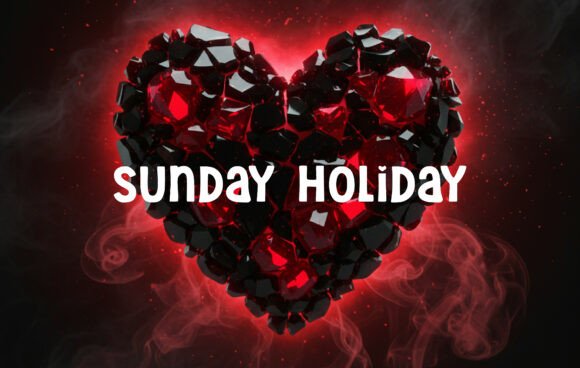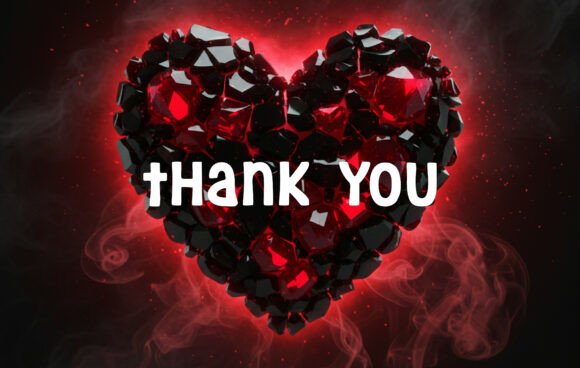
Introducing Heart Font: The Ultimate Display Font for Bold and Friendly Designs
Are you looking for a font that can add a touch of warmth and friendliness to your designs? Look no further than Heart Font, a powerful and friendly display font that’s perfect for a wide range of creative projects. Characterized by its extremely thick, rounded forms and soft, casual flow, Heart Font is sure to make a lasting impression on your audience.
The Power of Heart Font
Heart Font’s substantial weight gives it a strong visual impact that’s hard to ignore. Its bold and chunky letters are perfect for grabbing attention and making a statement. Whether you’re designing a logo, headline, or advertisement, Heart Font is sure to stand out from the crowd. But what really sets Heart Font apart is its gentle curves, which keep it approachable and warm. This unique combination of boldness and friendliness makes Heart Font the perfect choice for designers who want to create a lasting impression.
Heart Font is an incredibly versatile typeface that’s perfect for a wide range of design projects. Here are just a few ideas to get you started:
- Children’s branding: Heart Font is perfect for kids’ brands, with its playful and friendly vibe that’s sure to appeal to young audiences.
- Greeting cards: Add a touch of warmth and personality to your greeting cards with Heart Font’s soft and casual flow.
- Impactful headlines: Make a statement with Heart Font’s bold and chunky letters, perfect for headlines that need to grab attention.
- Casual apparel: Heart Font is perfect for designing casual apparel, such as t-shirts, hoodies, and hats.
What Makes Heart Font So Special?
So what makes Heart Font so special? Here are just a few features that set it apart from other display fonts:
- Extremely thick and rounded forms: Heart Font’s bold and chunky letters are perfect for making a statement.
- Soft and casual flow: Heart Font’s gentle curves keep it approachable and warm, making it perfect for designs that need a touch of personality.
- Versatile: Heart Font is perfect for a wide range of design projects, from children’s branding to casual apparel.
Tips for Using Heart Font in Your Designs
Here are just a few tips for using Heart Font in your designs:
- Use it sparingly: Heart Font is a bold and attention-grabbing font, so use it sparingly to avoid overwhelming your design.
- Pair it with a simple font: Heart Font pairs perfectly with simple fonts, such as sans-serif fonts, to create a bold and eye-catching contrast.
- Experiment with colors: Heart Font looks great in a wide range of colors, so don’t be afraid to experiment and find the perfect hue for your design.
Heart Font is a powerful and friendly display font that’s perfect for designers who want to create bold and eye-catching designs. With its extremely thick, rounded forms and soft, casual flow, Heart Font is sure to make a lasting impression on your audience. Whether you’re designing a logo, headline, or advertisement, Heart Font is the perfect choice for any design project that needs a touch of warmth and personality.